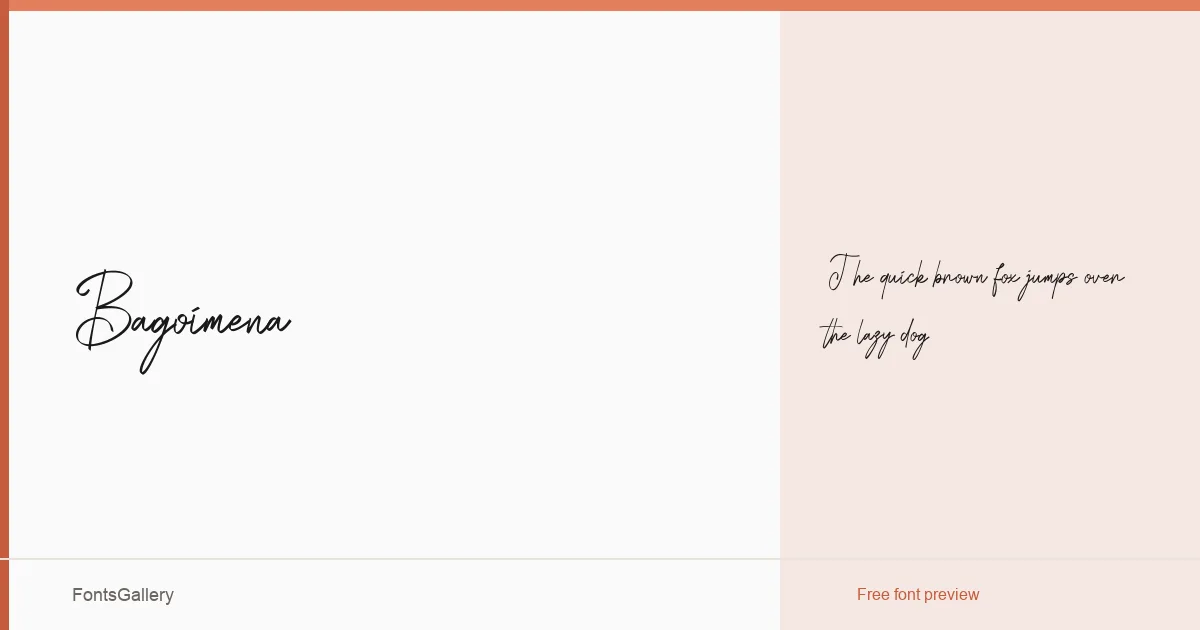
About Bagoimena Font
Bagoimena is an elegant script typeface designed by Nandini Febriyanti and published through Funtype Co. It brings a refined, romantic sensibility to its flowing letterforms, making it a distinctive choice for projects that call for timeless sophistication. With its classic character, Bagoimena strikes a graceful balance between tradition and contemporary style.
Bagoimena features the fluid, connected strokes characteristic of fine script typography, evoking an elegant and romantic atmosphere in every letterform. Its classic construction lends each character a sense of careful craftsmanship, with graceful curves and smooth transitions that give text a naturally poised appearance. The overall aesthetic feels both polished and warmly expressive, fitting seamlessly into formal and decorative design contexts alike.
Bagoimena shines in applications such as wedding stationery, invitation cards, greeting cards, logos, and branding projects where an elevated, romantic tone is desired. Its expressive script quality makes it especially well-suited as a display or headline typeface in designs that benefit from a touch of classic charm. For a compelling typographic contrast, Bagoimena pairs beautifully with Aresink for a cohesive editorial feel, or with Helvetica for a clean, modern balance against its ornate script style.